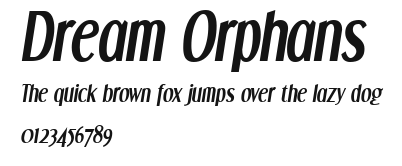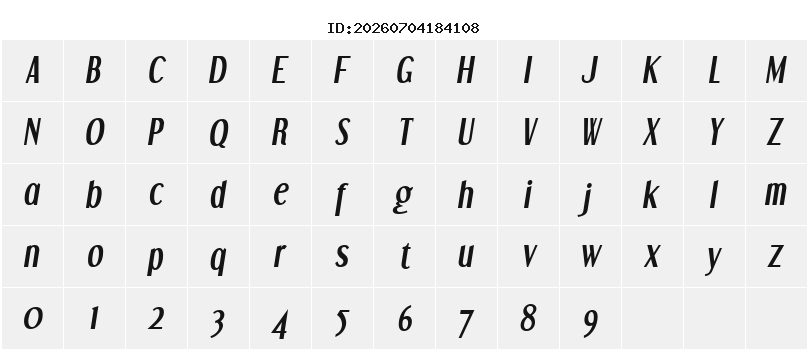
• Font Name: Dream Orphans
• Font ID: RayLarabie: Dream Orphans Bold Italic: 2005
• Full Font Name: Dream Orphans Bold Italic
• Designer: Ray Larabie
• Manufacturer: Ray Larabie
Dream Orphans.ttf is a modern, elegant sans-serif font designed for ultimate readability and visual harmony. Perfect for branding, headlines, web design, and print materials.